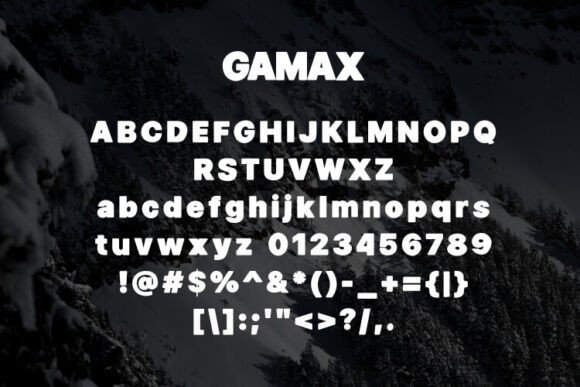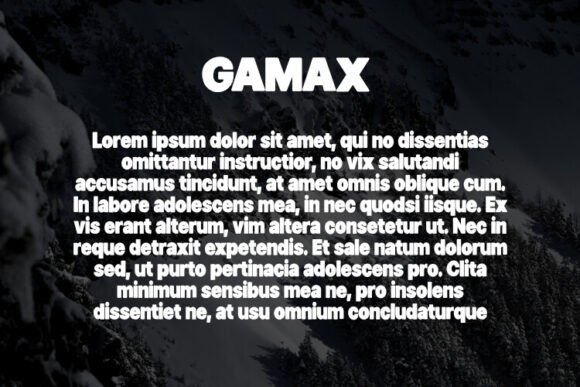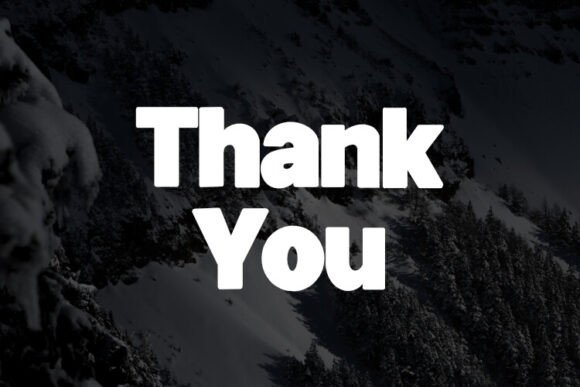
Unleash Your Creativity with the GAMAX Font: A Game-Changer for Fashion Designers and Crafters
In the world of fashion, style, and uniqueness are paramount. As a designer or crafter, you’re constantly on the lookout for innovative ways to make your creations stand out from the crowd. That’s where the GAMAX font comes in – a custom-made, stylish, and versatile font designed specifically for the fashion industry. In this article, we’ll dive into the realm of the GAMAX font, exploring its features, benefits, and endless possibilities for elevating your designs.
The Birth of GAMAX: A Font Tailored for Fashion
The GAMAX font is the brainchild of creative visionaries who understand the needs of fashion designers and crafters. Born out of a passion for style and self-expression, this font is carefully crafted to complement and enhance the aesthetic appeal of clothing and t-shirt designs. With GAMAX, you can add a distinctive flair to your creations, setting them apart from the ordinary.
Key Features of the GAMAX Font
- Custom-made for fashion: The GAMAX font is specifically designed for the world of fashion, ensuring it meets the unique demands of clothing and t-shirt designs.
- Versatile and adaptable: GAMAX seamlessly integrates into all designs, allowing you to experiment with various styles and creative projects.
- Stylish and unique: The GAMAX font boasts a distinctive style that adds a touch of sophistication and elegance to your designs.
Endless Possibilities with GAMAX
The GAMAX font is more than just a stylish addition to your designs – it’s a gateway to limitless creativity. Whether you’re a professional designer or a crafter looking to add a personal touch to your projects, this font offers a world of possibilities:
- T-shirt designs: Create eye-catching, one-of-a-kind t-shirt designs that showcase your personality or brand.
- Clothing labels: Elevate your clothing labels with a touch of sophistication and style.
- Fashion branding: Use GAMAX to create a distinctive brand identity that sets you apart from the competition.
- Stationery and paper crafts: Add a touch of fashion flair to your stationery, greeting cards, and paper crafts.
Why Choose GAMAX?
With so many fonts available, why choose GAMAX? Here are just a few compelling reasons:
- Uniqueness: GAMAX offers a distinctive style that will set your designs apart from the crowd.
- Versatility: This font is adaptable and compatible with various design software and platforms.
- Constant innovation: The GAMAX font is part of a larger vision to continually push the boundaries of style and creativity.
Get Ready to Dive into the Realm of Style and Uniqueness
The GAMAX font is your go-to choice for adding a touch of sophistication and style to your designs. Whether you’re a seasoned designer or a crafter looking to explore new creative horizons, this font is sure to inspire. So why limit your creativity? Explore the infinite possibilities with the GAMAX font and discover a world of style, uniqueness, and self-expression.